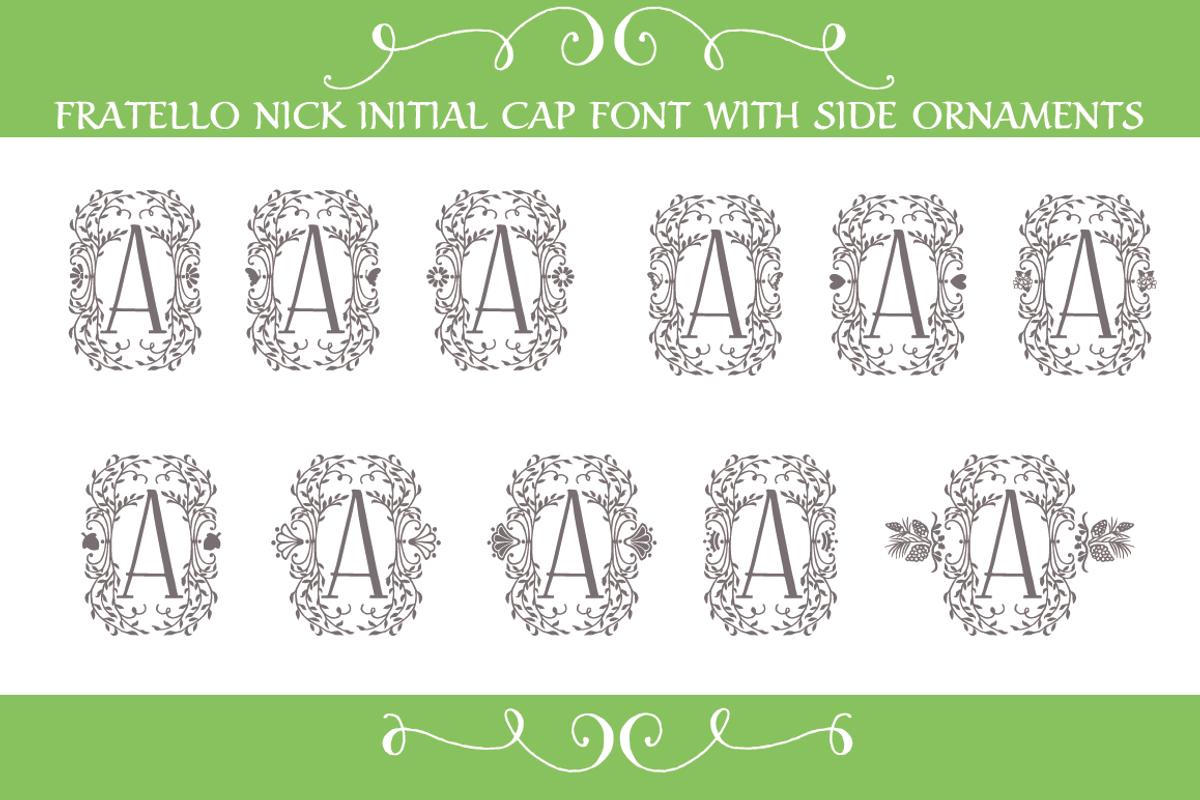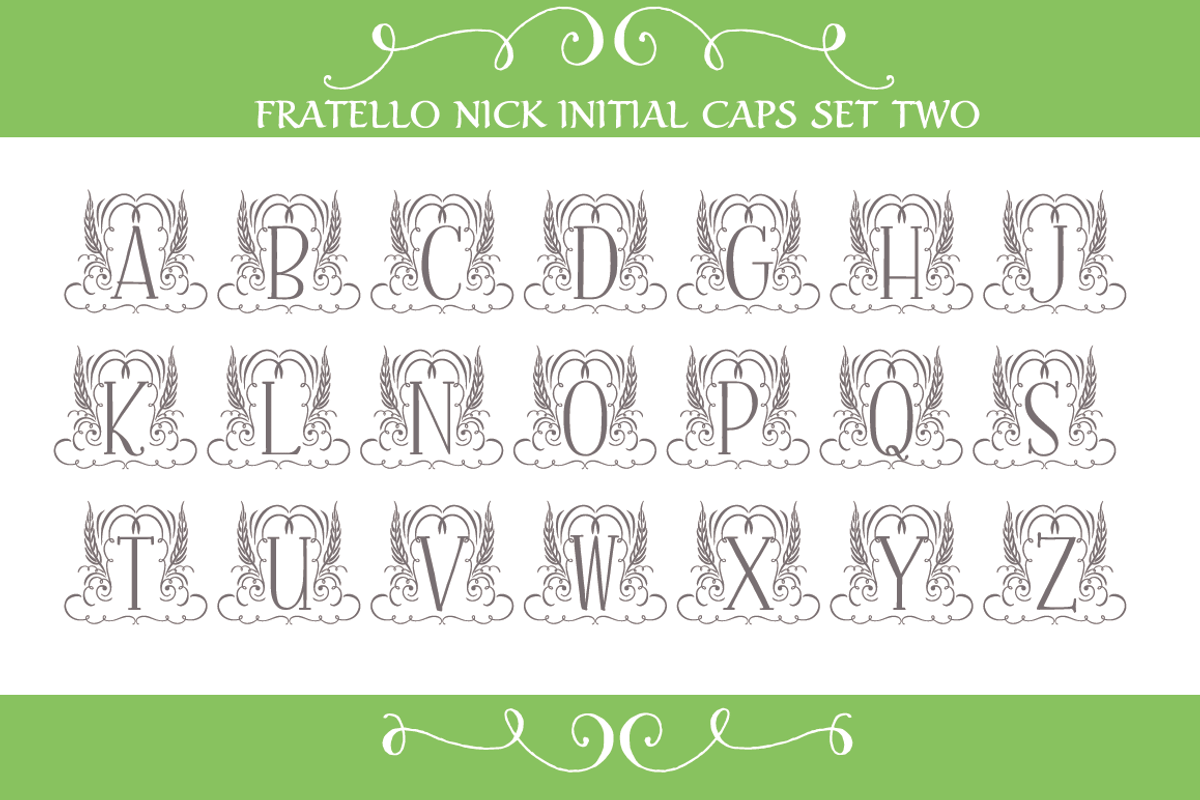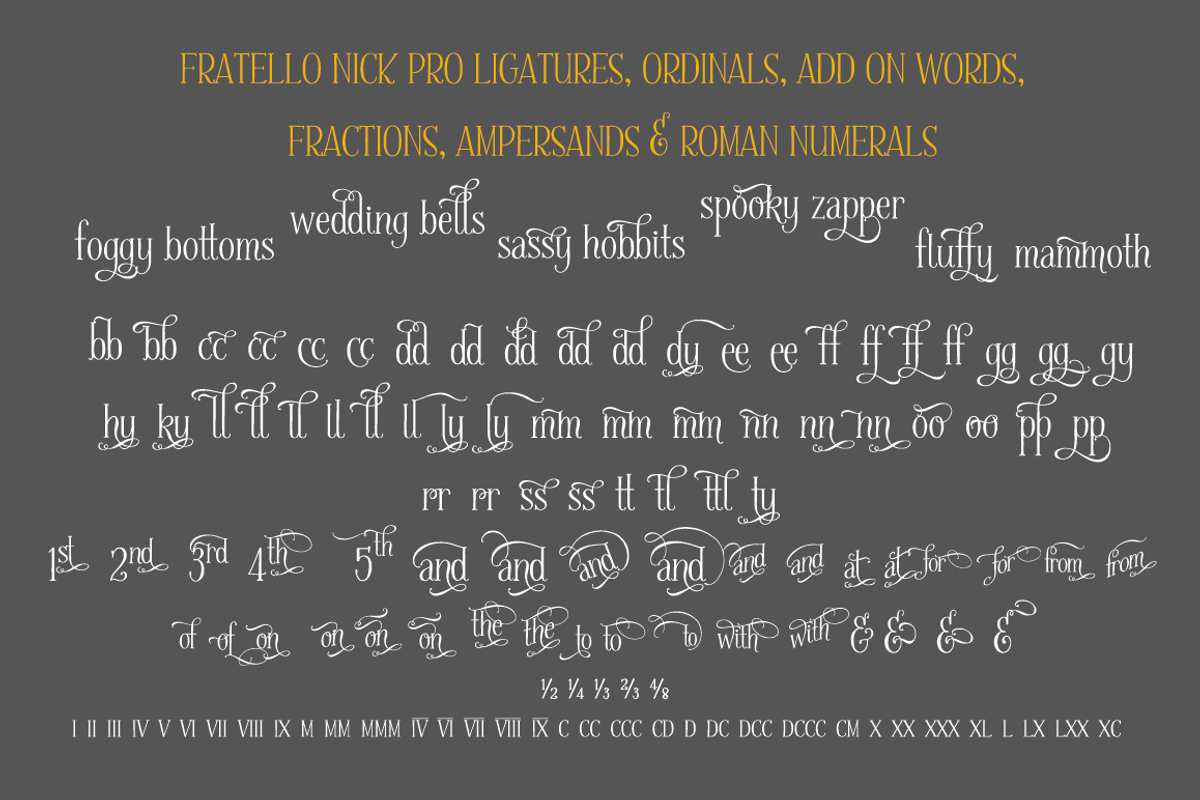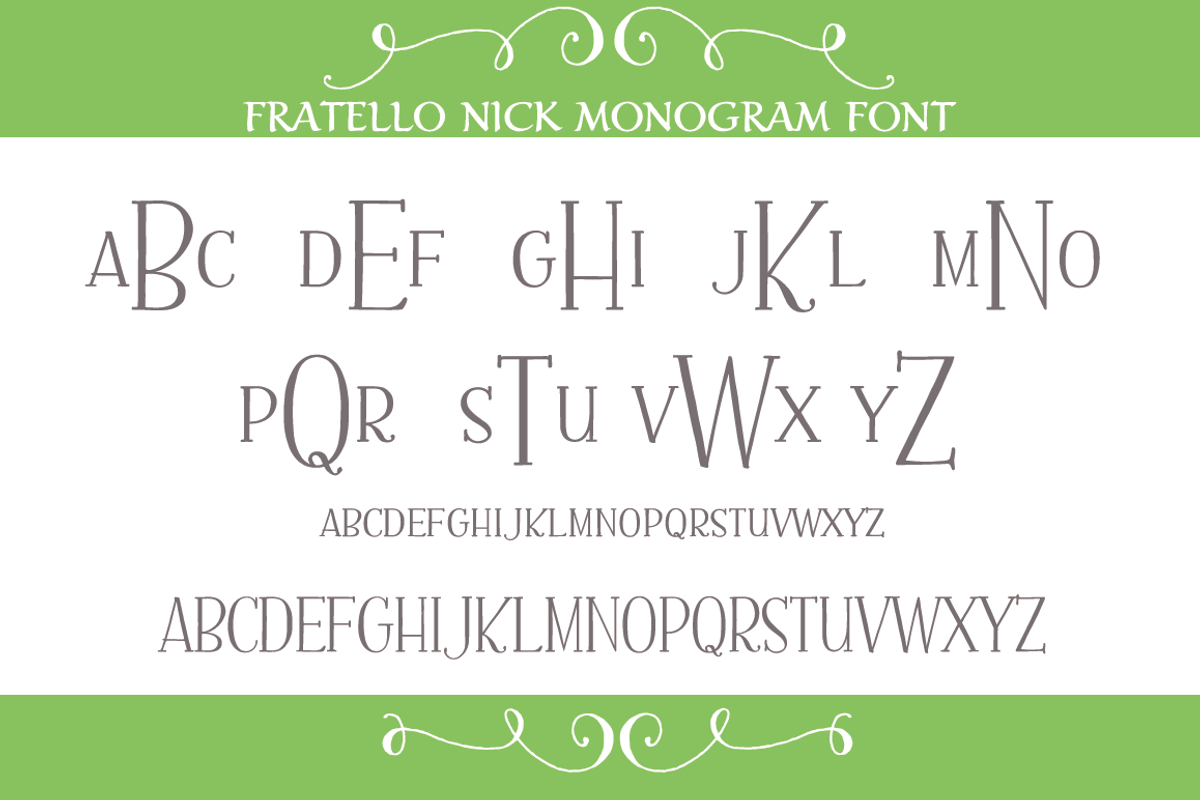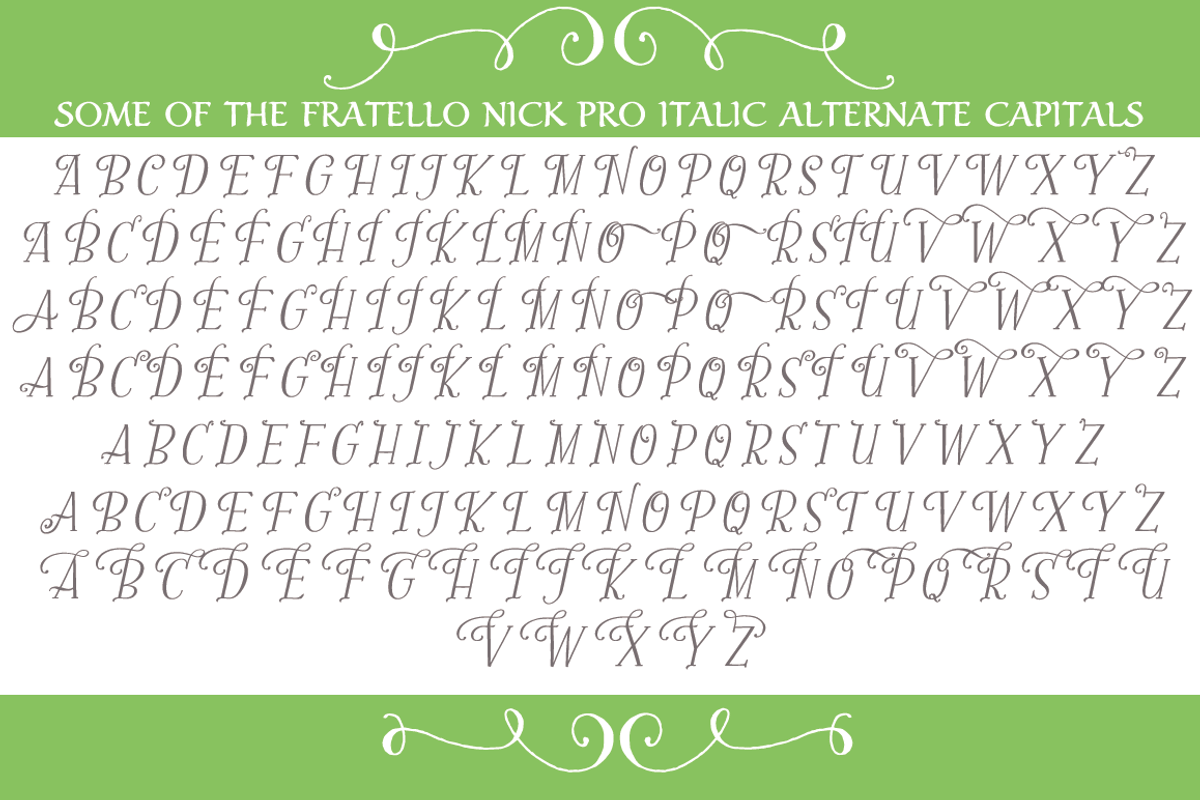
Fratello Nick Total Collection
Fratello Nick is a hand-lettered text with 1160 glyphs to play with. It was inspired by my beautiful red-headed son Nick. Read the inspiration behind the font below.
There are 15 fonts in the family. Both the Regular and Pro come in a variety of weights: Regular, Bold, Italic and Bold Italic.
Also included are fun accessories like Initial Caps, 94 ornaments, 82 frames, two sets of Initial Caps (one allows you to insert special ornaments in the side insets!), a 3-letter Monogram font and three different Split Monogram fonts! (Each one has two different options when you type using upper or lower case... plain, flowers, bunnies, birds and butterflies!)
It can be simple and sweet or bring a touch of flair and whimsy to your project with any of its fun alternate letters. There are nine different uppercase alphabet sets!
Additional features include: Roman numerals, fractions, ordinals, Greek symbols, all caps and small caps. It also includes Western and Central European, Romanian and Turkish language support.
Here’s the story of the inspiration behind the font:
Once upon a time, there was a red headed boy named Nicolas who loved to read books. So his mother would have him curl up in her lap and read to his heart’s content. And this made Nicolas a very happy boy.
The years have passed and Nicolas now goes by Nick. He went to college in Washington, D.C. and became a Nationals fan. He lives and works there and knows the Metro like the back of his hand. But he can smoke a rack of ribs like the true Texas boy he is. He still loves to read. And that makes Nick a very happy man.
His mom (me) was inspired to hand letter this font to honor this boy she loves so much. Because raising a boy who becomes a wonderful man is something to celebrate. The moral of the story? Cuddling with books always leads to good things.
I hope Fratello Nick will be a part of helping you create stories of your own.